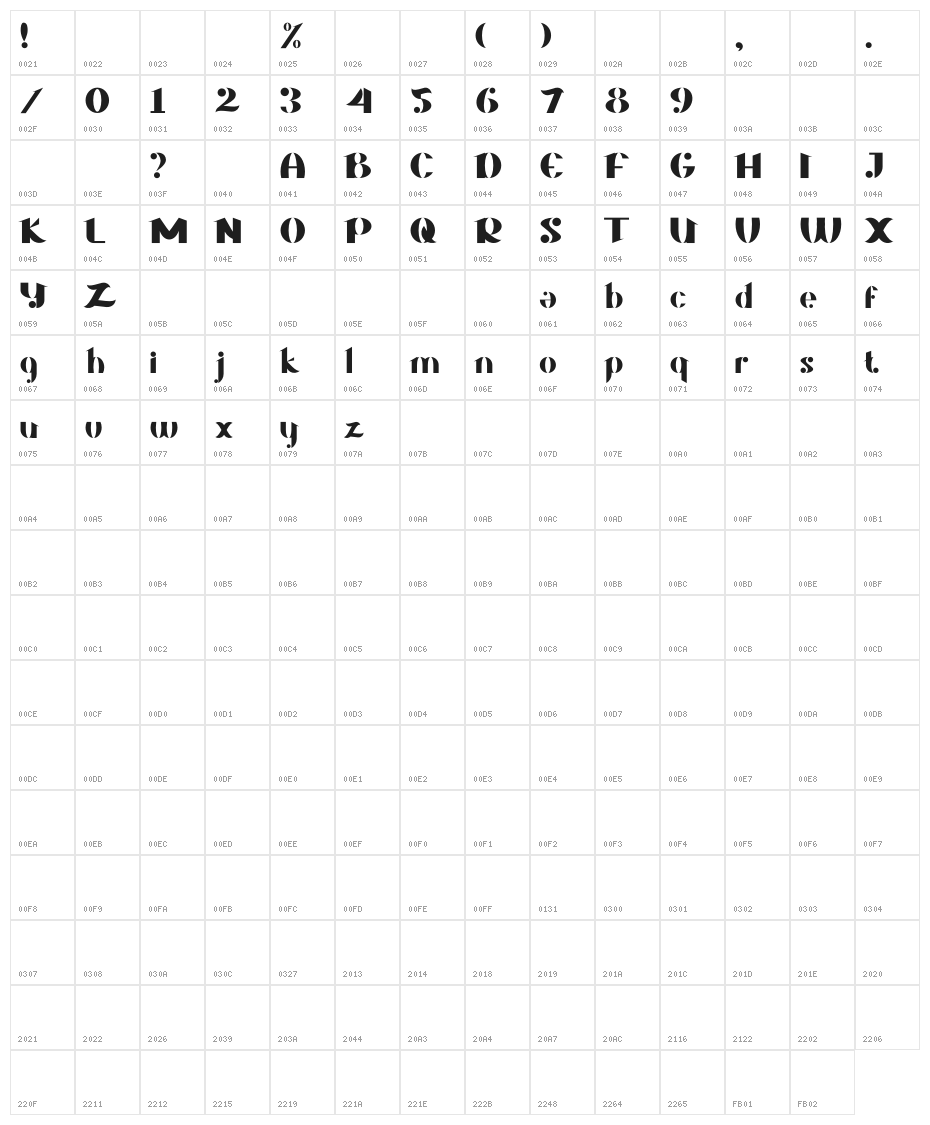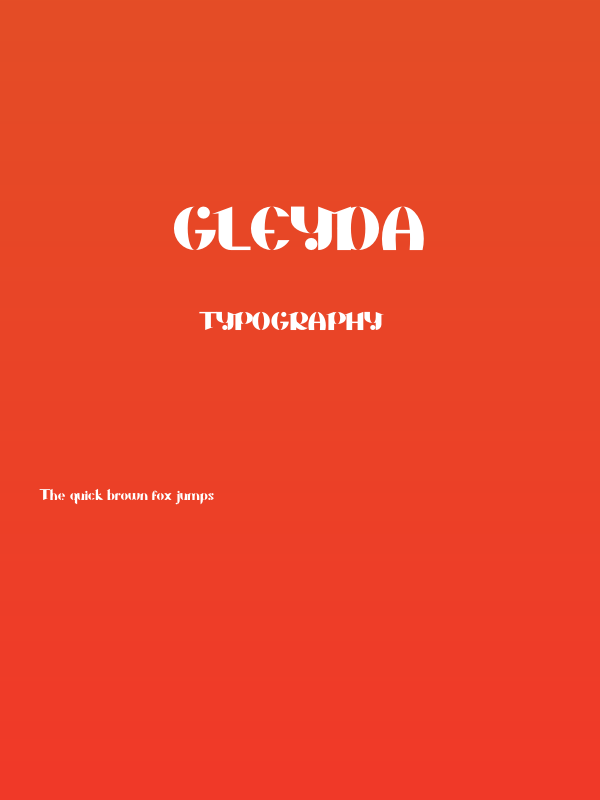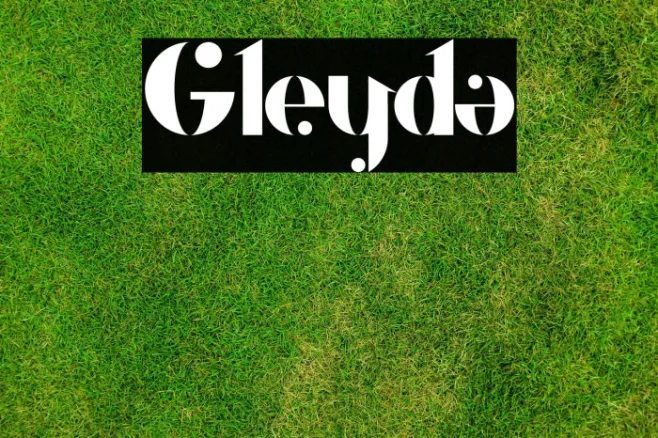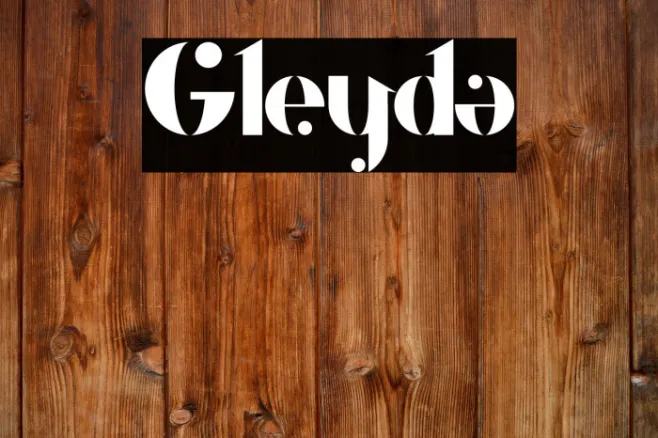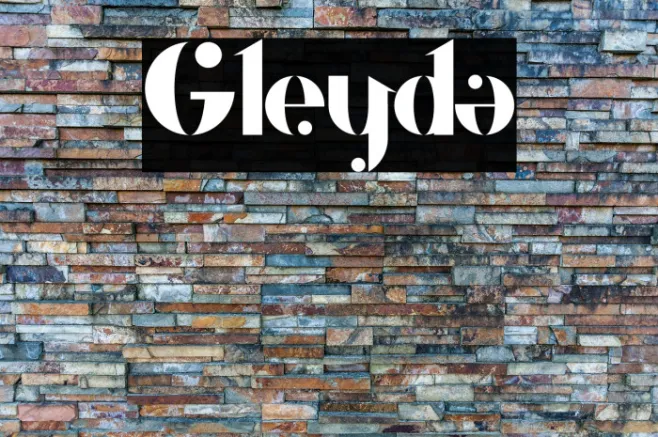
Gleyda Font
Gleyda Description
This font features a bold and striking design with geometric elements and high contrast between thick and thin strokes. The characters are crafted with a modern flair, incorporating sharp angles and circular cutouts that create a unique visual rhythm. The uppercase letters are particularly eye-catching, with a strong presence that commands attention. The lowercase letters maintain the same boldness, ensuring consistency throughout the typeface. The numerals and special characters are equally distinctive, making this font versatile for various design applications.
| Proposed Projects | Ideal for branding, poster design, and editorial headlines where a strong visual impact is desired. |